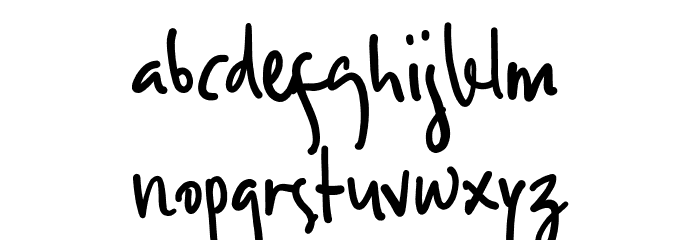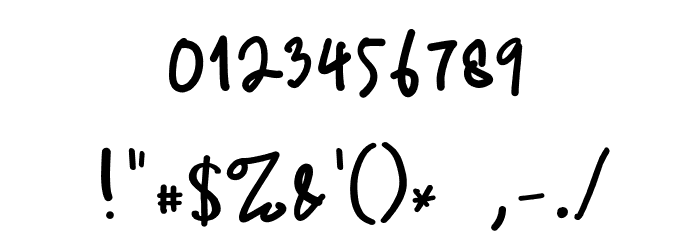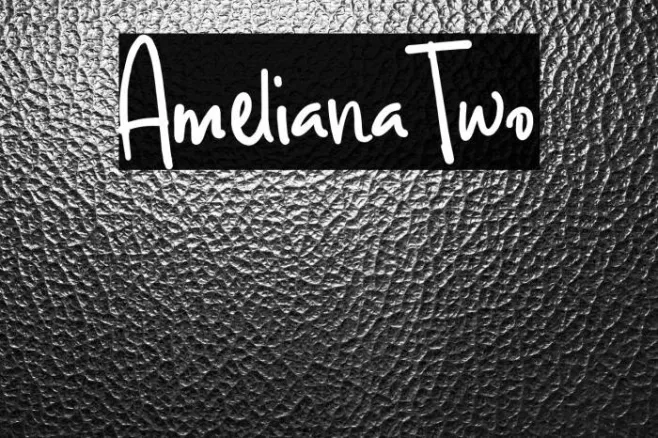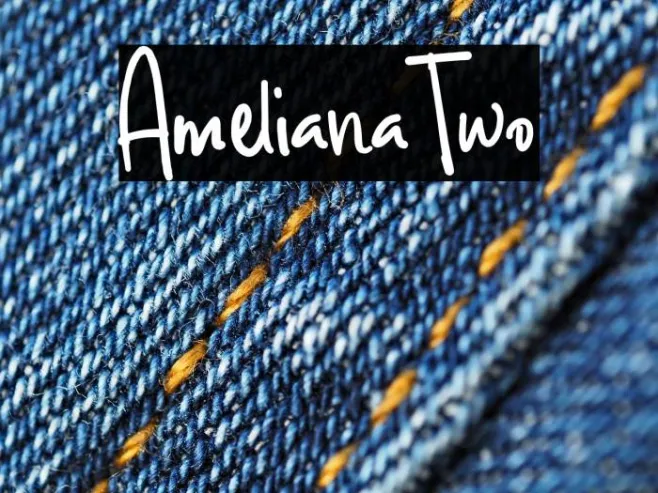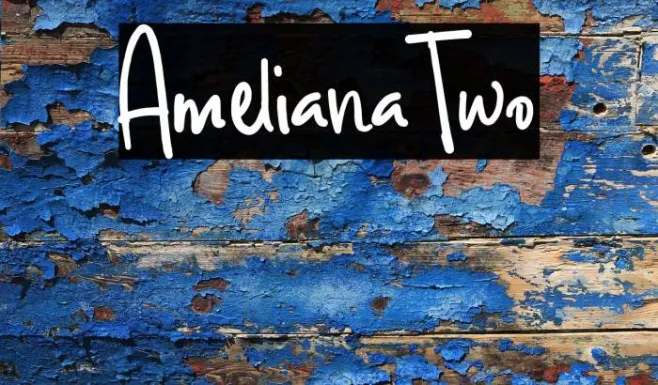
AmelianaTwo Font
This font exudes a playful and casual handwritten style, characterized by its irregular strokes and organic flow. The uppercase letters are tall and slightly narrow, with a whimsical touch that adds personality. The lowercase letters maintain a consistent style, with some letters featuring unique loops and curves that enhance the font's charm. The numbers are clear and legible, following the same handwritten aesthetic. Special characters are creatively designed, fitting seamlessly with the overall style. This font is perfect for projects that require a personal, informal touch, such as greeting cards, invitations, or creative branding.
A playful, casual handwritten font with irregular strokes and an organic flow.
- Proposed Projects: Ideal for greeting cards, invitations, creative branding, and personal projects.
- Overall Style: Casual, Playful
- Use Case: Headlines, Logos, Informal Text